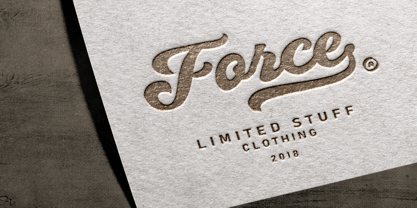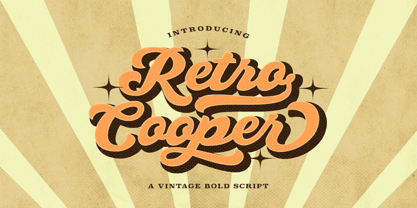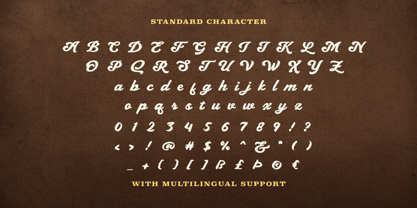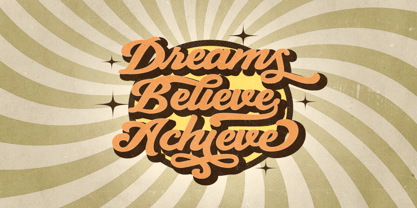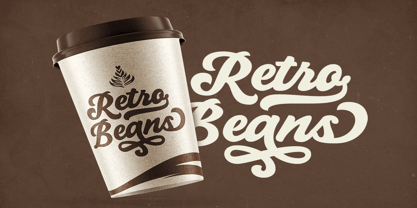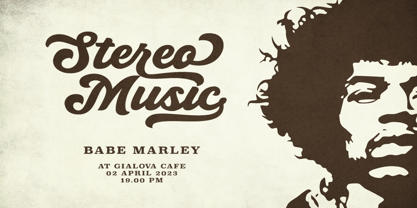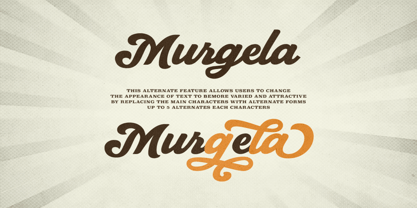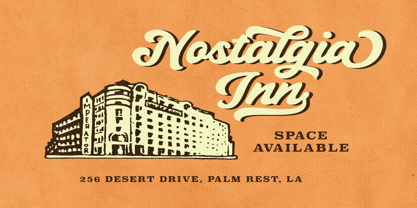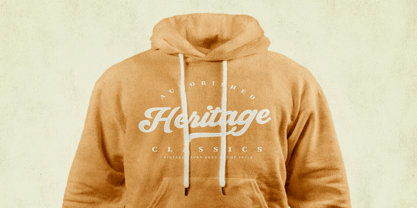
Retro Cooper
by Bale Type
The Retro Cooper Font Family was designed by Sarid Ezra, Dzikrul Aulia and published by Bale Type. Retro Cooper contains 1 styles.
Retro Cooper is a vintage and retro bold script with stylish alternates and ligatures. With vintage looks, you can use this font for any poster retro event that required classic and old style. This font contains up to 5 alternates each characters that will make your design more bold and stunning. Retro Cooper also support multi language.